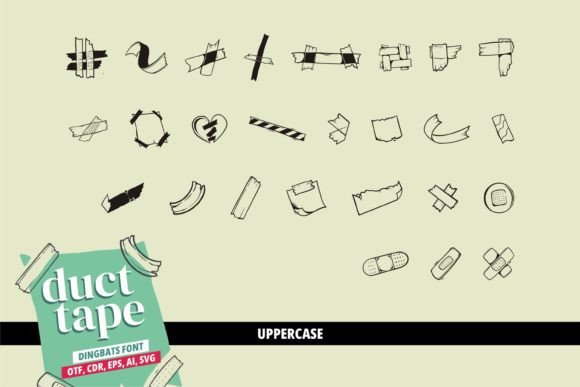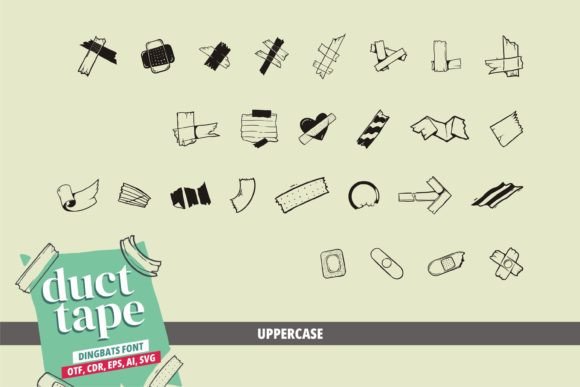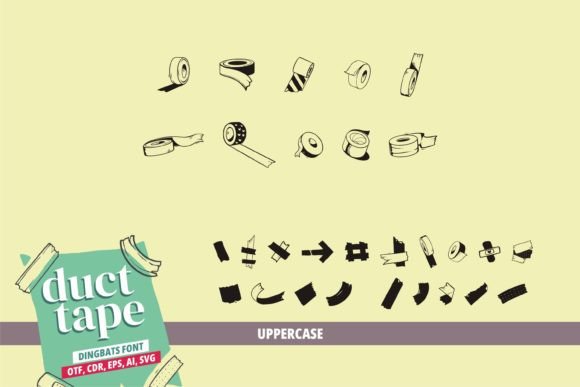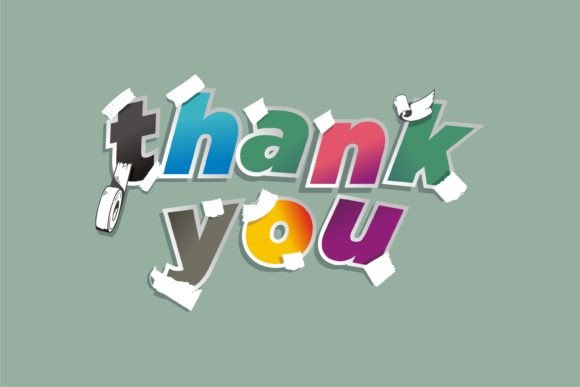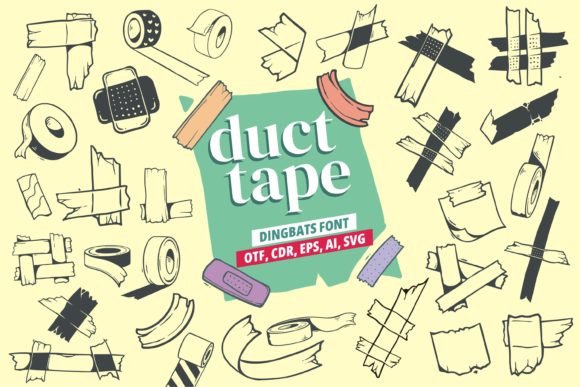
Duct Tape Font: The Ultimate Playful Dingbat for Designers and Crafters
Are you tired of using the same old fonts in your designs? Look no further! Introducing the Duct Tape Font, a playful dingbat font that’s perfect for adding a touch of whimsy to your creative projects. In this article, we’ll dive into the world of dingbat fonts, explore the features of the Duct Tape Font, and show you how to make the most of this versatile font.
What is a Dingbat Font?
A dingbat font is a type of font that features graphical symbols, shapes, and icons instead of traditional letters and numbers. Dingbat fonts are often used for decorative purposes, such as adding visual interest to designs, creating icons, and developing logos. They can be used in a variety of contexts, from graphic design and crafting to scrapbooking and journaling.
Introducing the Duct Tape Font
The Duct Tape Font is a hand-drawn dingbat font that’s inspired by the humble duct tape. This font features a range of playful and quirky symbols, including duct tape rolls, scissors, tape dispensers, and more. Each symbol is carefully crafted to be unique and visually appealing, making it perfect for adding a touch of personality to your designs.
Features of the Duct Tape Font
- Hand-drawn design: Each symbol in the Duct Tape Font is hand-drawn, giving it a unique and personal touch.
- Playful and quirky: The font features a range of playful and quirky symbols that are sure to add a touch of whimsy to your designs.
- Versatile: The Duct Tape Font can be used for a variety of purposes, from graphic design and crafting to scrapbooking and journaling.
Using the Duct Tape Font in Your Designs
The Duct Tape Font is perfect for adding a touch of personality to your designs. Here are a few ideas to get you started:
- Decorate your designs: Use the Duct Tape Font to add visual interest to your designs, such as in scrapbooking, journaling, and card making.
- Create icons and logos: The font’s graphical symbols make it perfect for creating icons and logos for your website, social media, or business.
- Add a touch of whimsy: Use the Duct Tape Font to add a touch of whimsy to your designs, such as in illustrations, graphics, and animations.
Tips and Tricks for Using the Duct Tape Font
Here are a few tips and tricks for getting the most out of the Duct Tape Font:
- Experiment with different colors: The Duct Tape Font looks great in a range of colors, so don’t be afraid to experiment and find the perfect color for your design.
- Mix and match symbols: The font features a range of symbols, so try mixing and matching them to create unique and interesting designs.
- Use it in combination with other fonts: The Duct Tape Font pairs well with a range of other fonts, so try using it in combination with your favorite fonts to create something truly unique.
The Duct Tape Font is a playful and versatile dingbat font that’s perfect for designers and crafters looking to add a touch of personality to their designs. With its hand-drawn design, playful and quirky symbols, and ease of use, this font is sure to become a favorite in your design arsenal. So why not give it a try and see what amazing designs you can create?